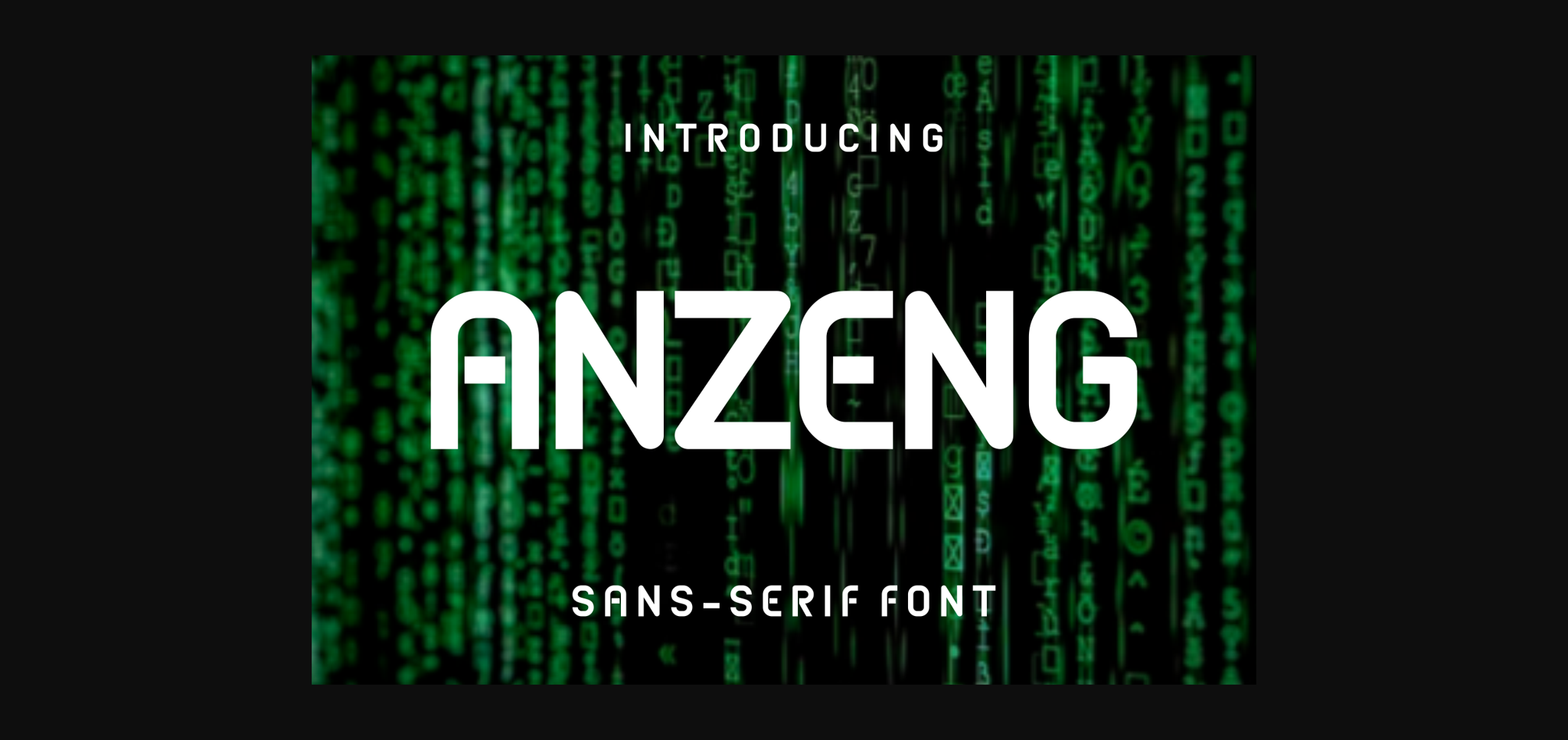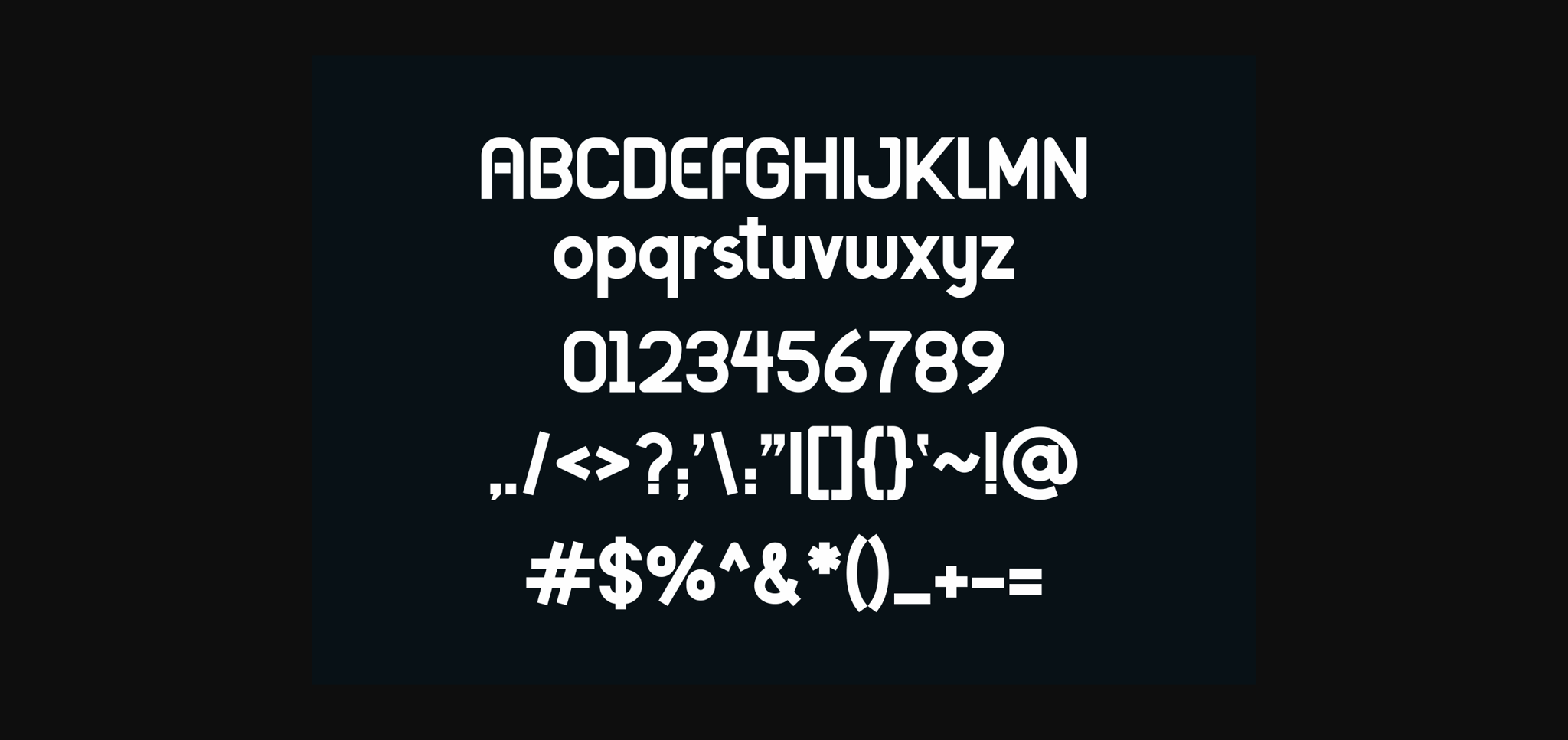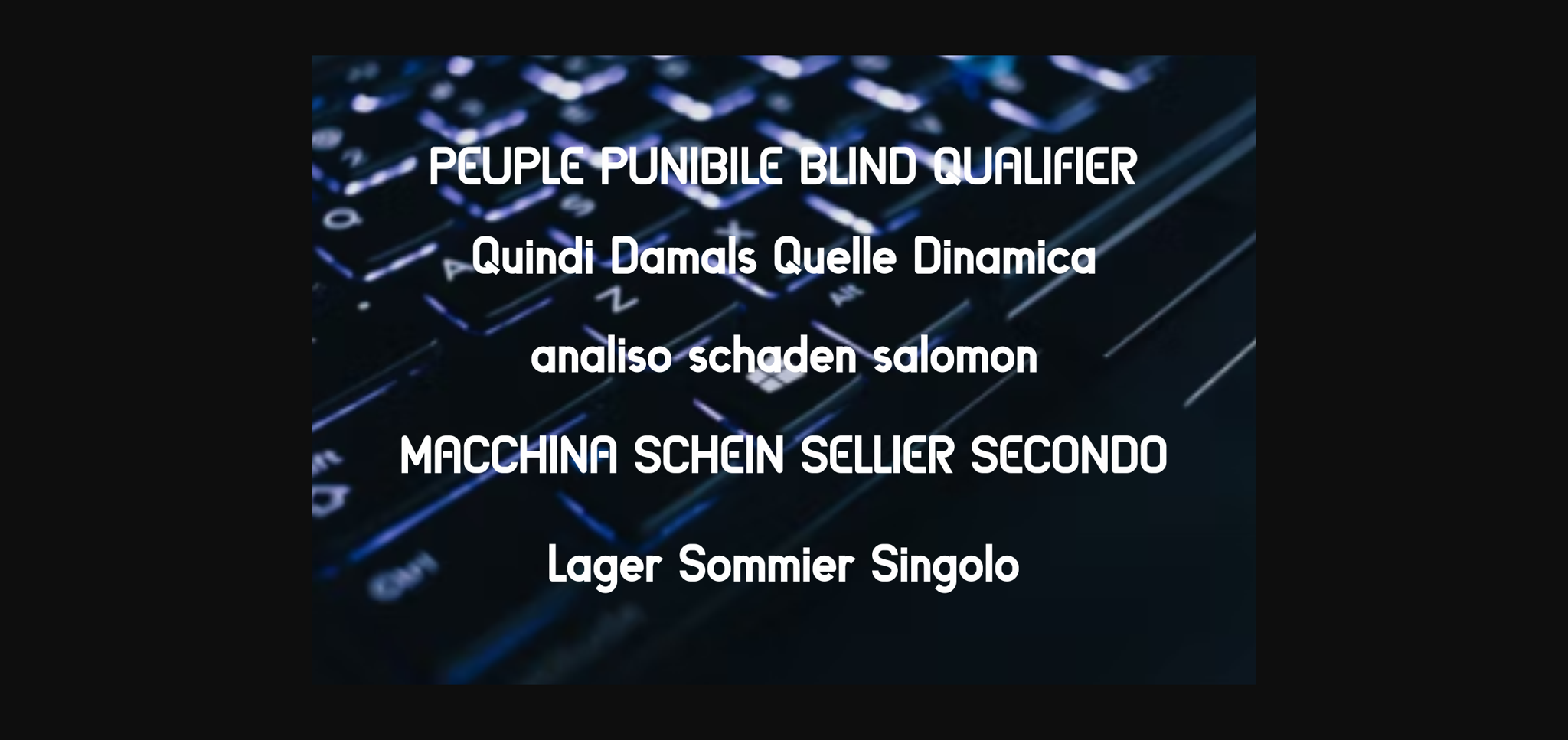
Anzeng Font
About Anzeng Font
Anzeng is a cool and unique sans serif font. No matter the topic, this font will be an incredible asset to your fonts’ library, as it has the potential to elevate any creation.